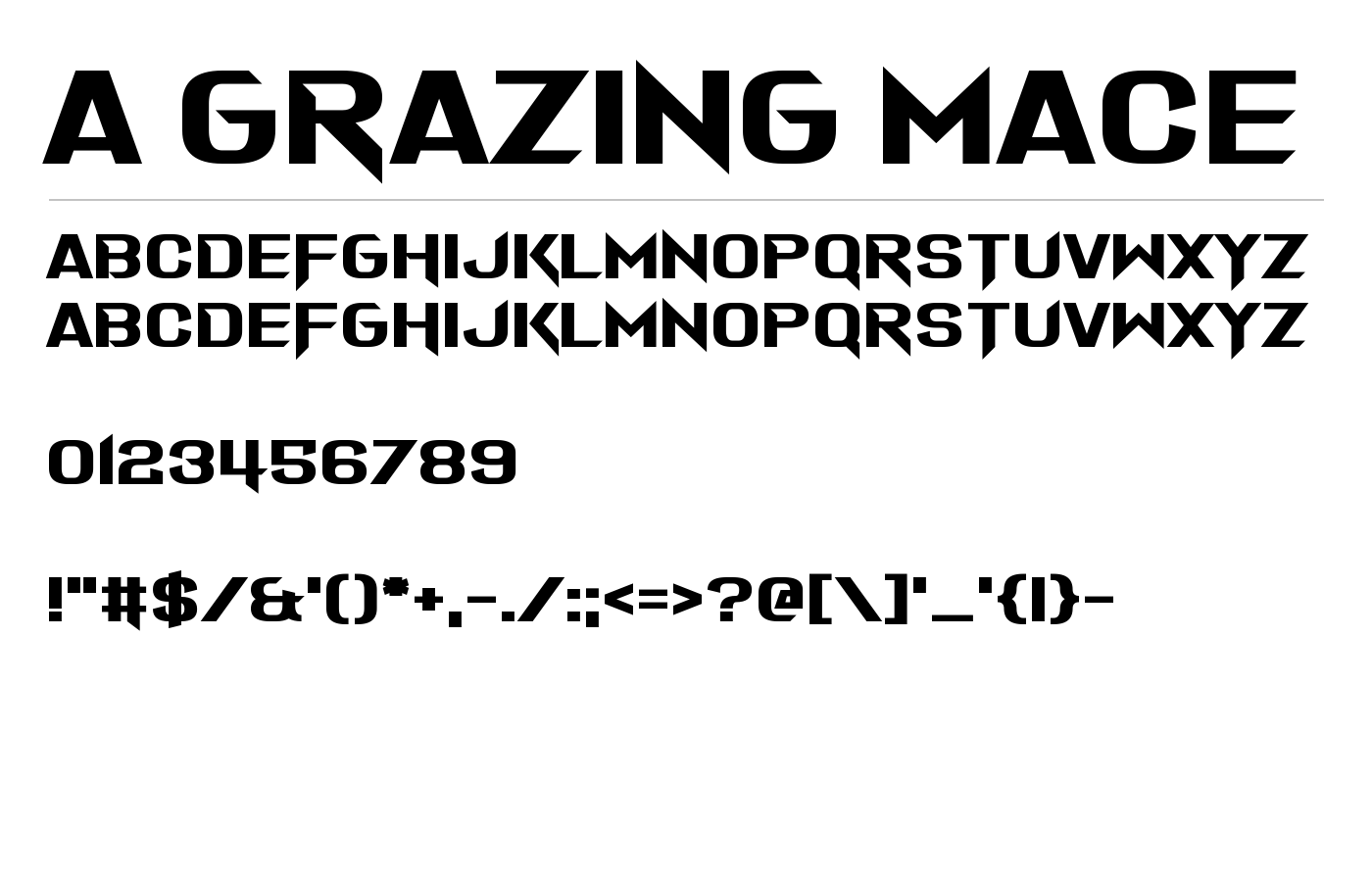
A Grazing Mace is a bold, geometric sans serif font with sharp, angled cuts that give it a dynamic and futuristic vibe. Its strong, condensed letterforms with unique flair in characters like the "G" and "R" make it ideal for eye-catching headlines, logos, and branding that want to convey confidence and modernity. This font works best in designs looking for a powerful and edgy style, especially in tech, sports, or entertainment contexts.
A Grazing Mace Font
About A Grazing Mace Font